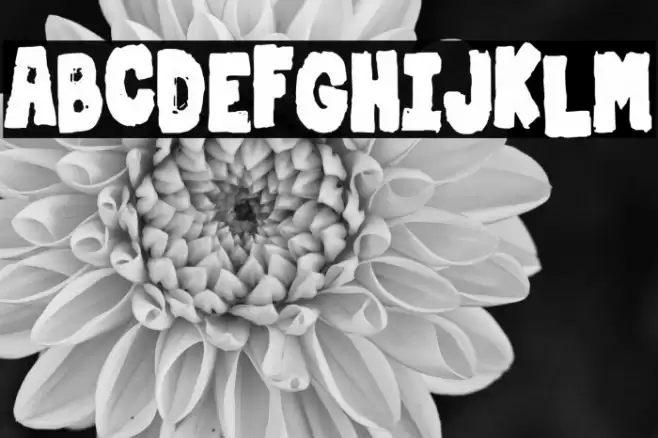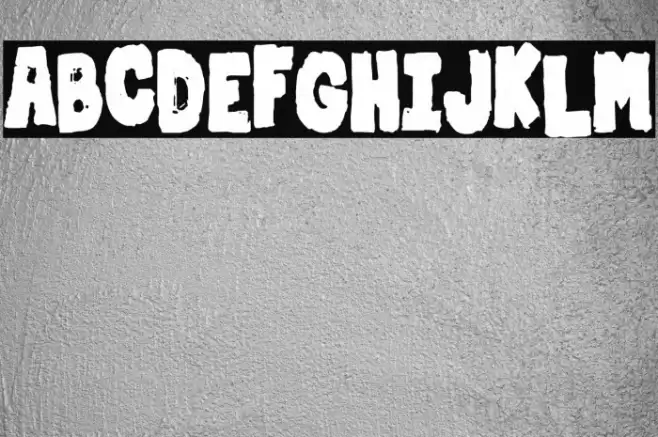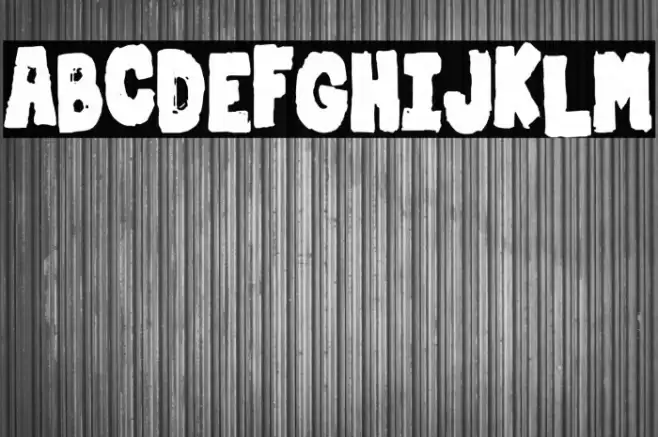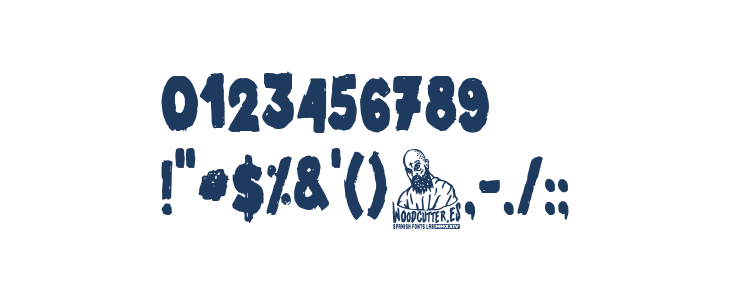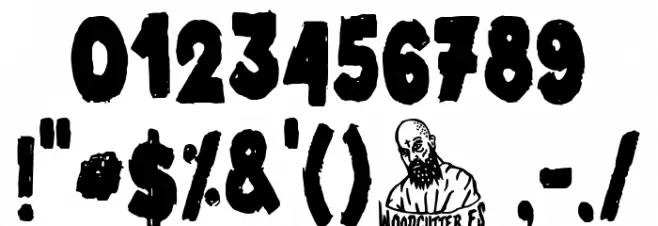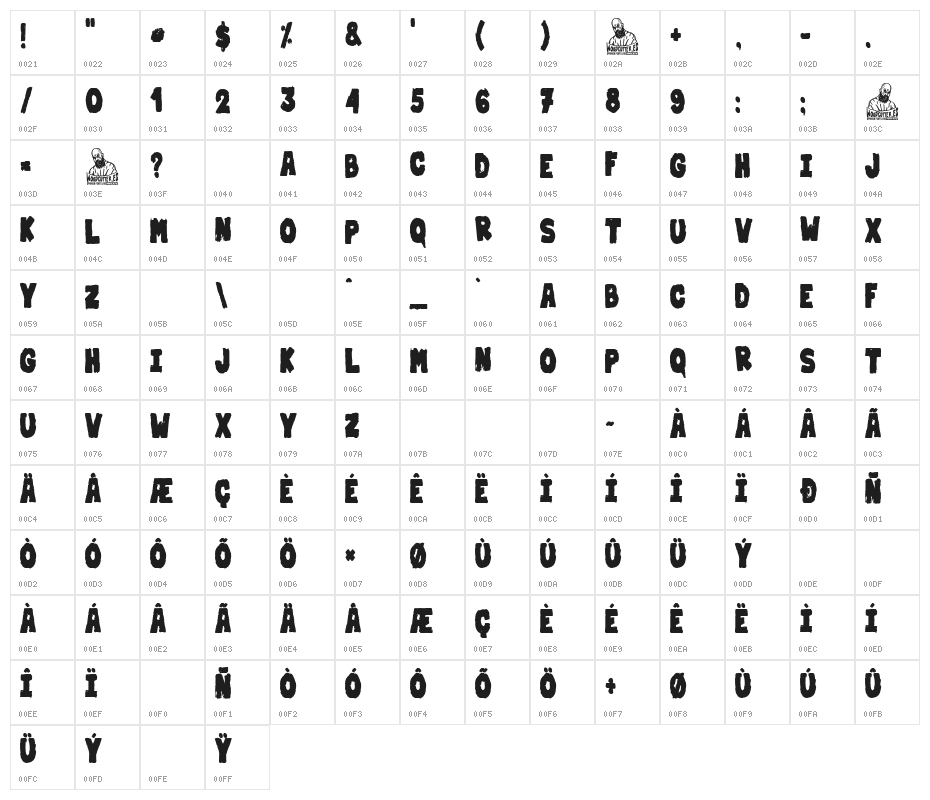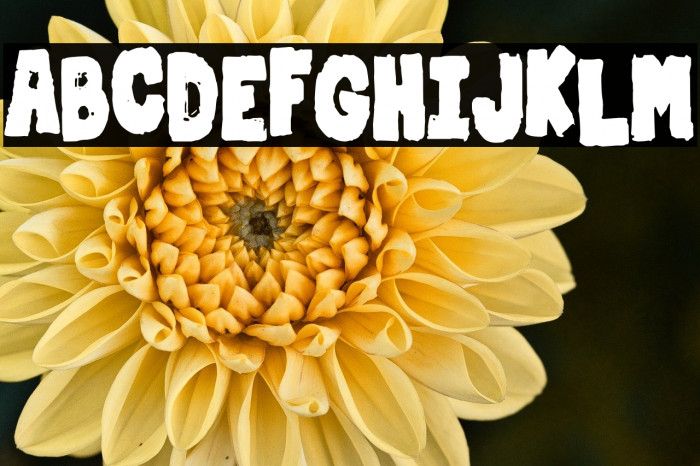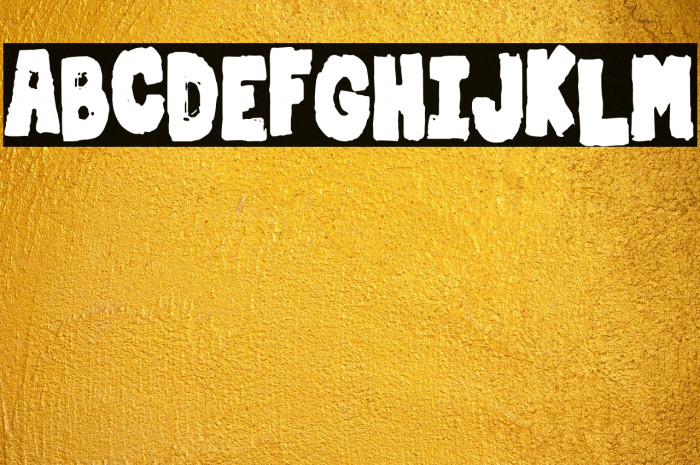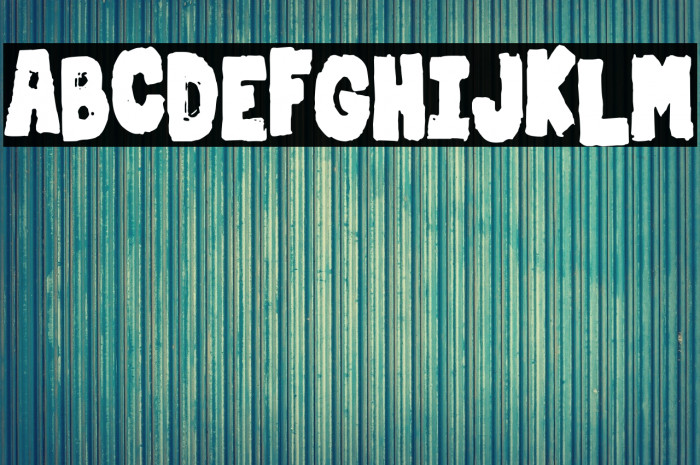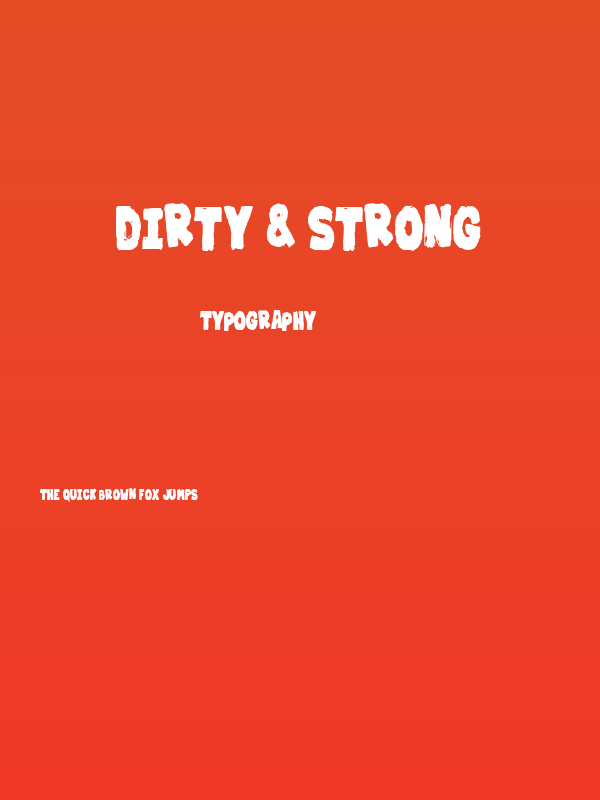
Dirty & Strong Font
Dirty & Strong Description
This font features a bold and rugged design with a distressed texture that gives it a gritty, hand-crafted appearance. The characters are thick and heavy, with uneven edges and a rough, organic feel. This style conveys a sense of strength and rawness, making it ideal for projects that require a bold statement. The uppercase and lowercase letters maintain a consistent weight, while the numbers and special characters complement the overall aesthetic with their robust form. The font's unique texture adds depth and character, making it stand out in any design context.
A bold, distressed font with a rugged, hand-crafted appearance from Uncategorized fonts.
- Font: Dirty & Strong
- Proposed Projects: Ideal for posters, album covers, branding for outdoor or adventure products, and any design needing a bold, gritty look.
- Overall Style: Rugged, Hand-crafted, Distressed